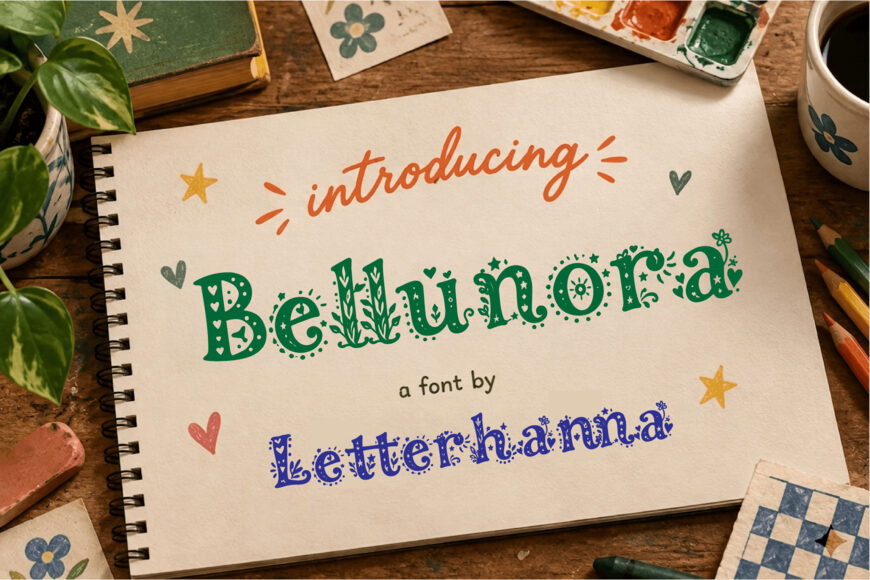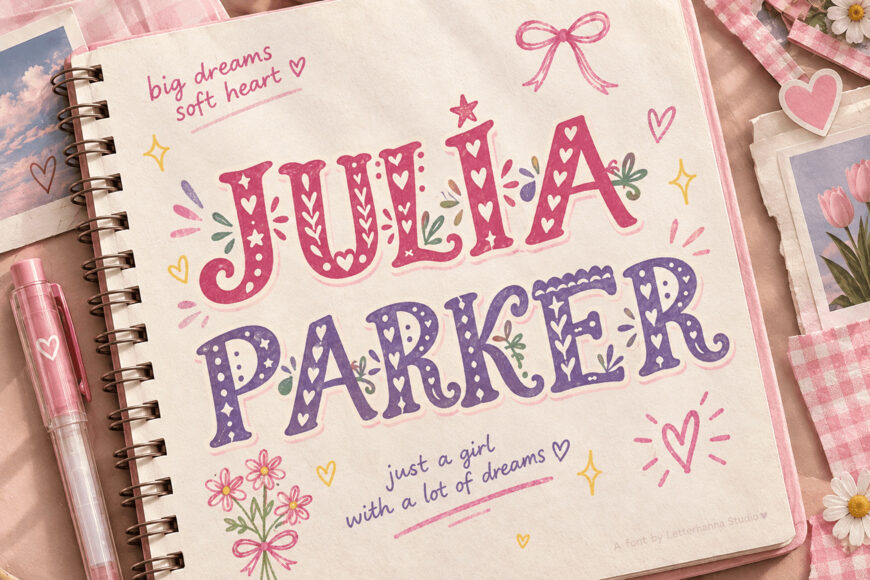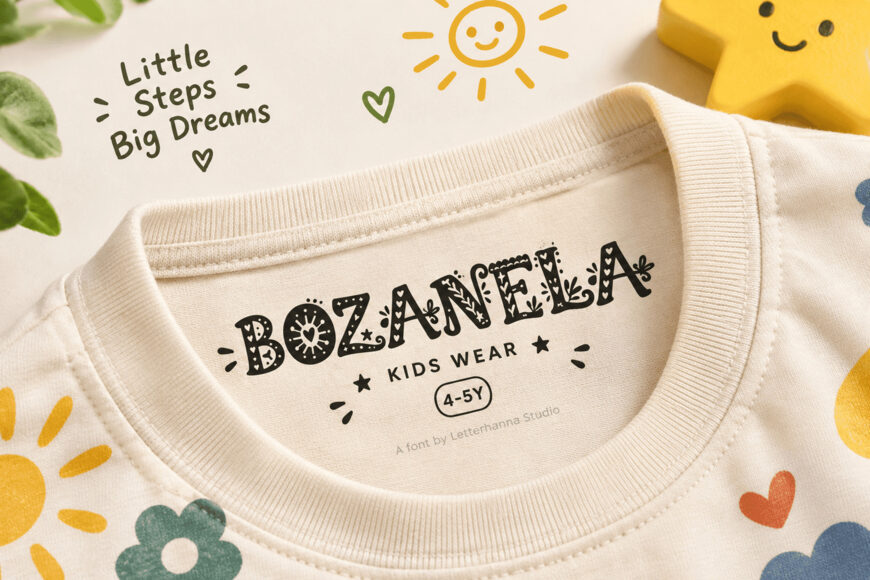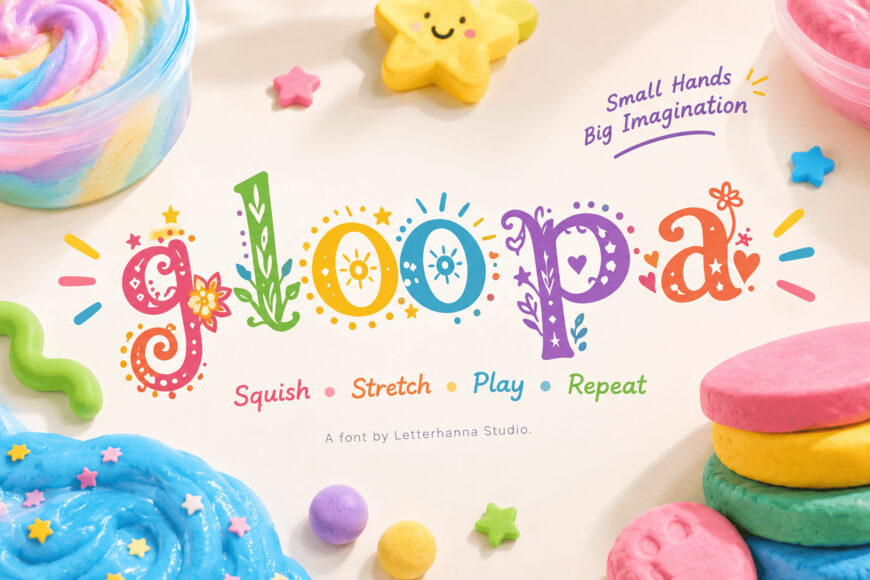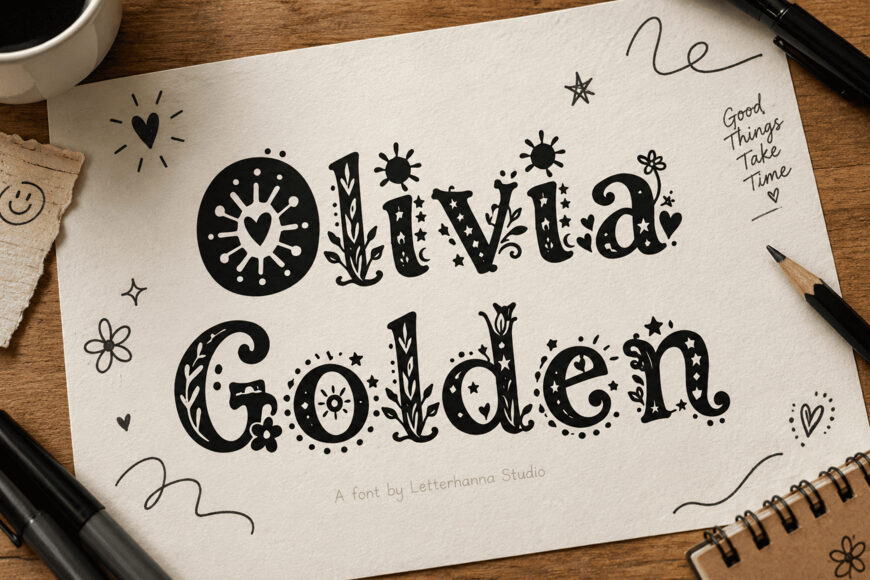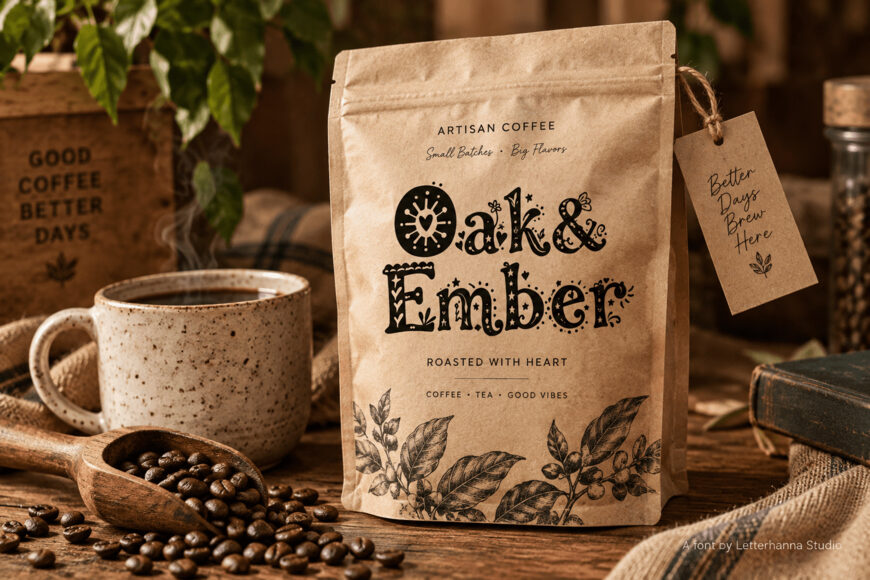
Bellunora Font
Some fonts just say words. Bellunora tells a story. Every letter is packed with hand-doodled hearts, tiny stars, and delicate florals, turning a simple headline into something that feels handmade, personal, and unmistakably feminine.
If you’ve been searching for a girly font that doesn’t feel generic, this is it. Bellunora was designed for creators who want their work to feel like a page torn straight out of a beloved diary.